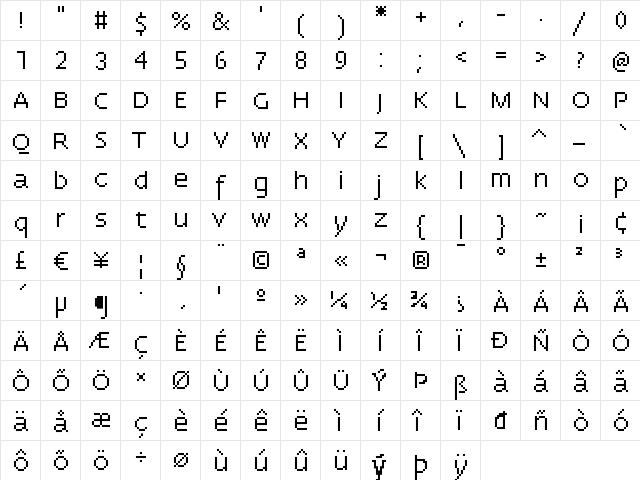
FedraTwelve Normal
FedraTwelve takes a measured approach to typography — its balanced proportions and neutral character make it a reliable workhorse for both digital and print work.